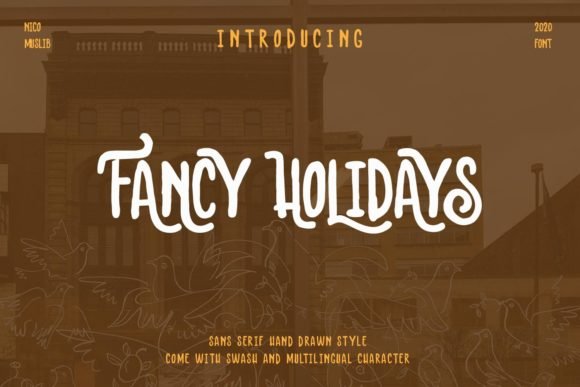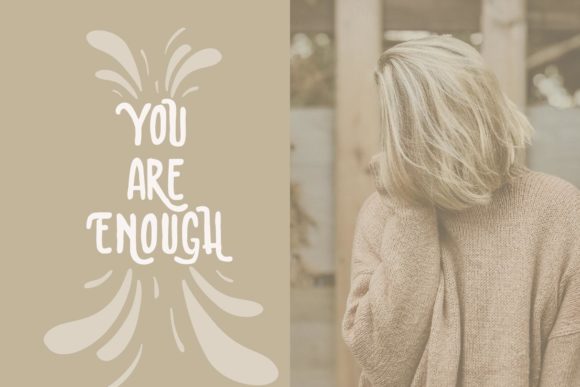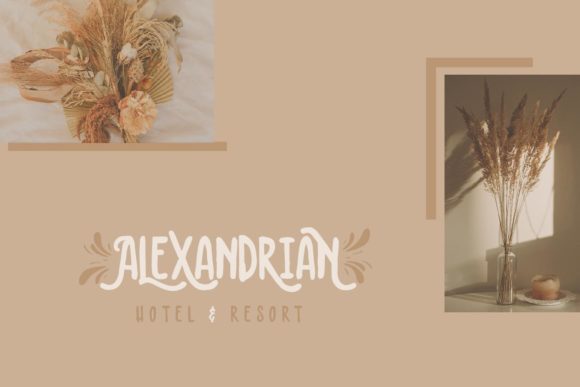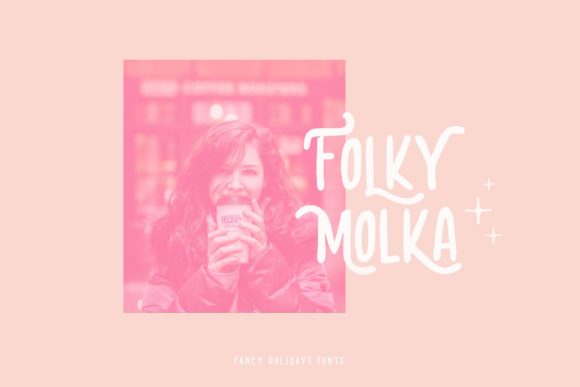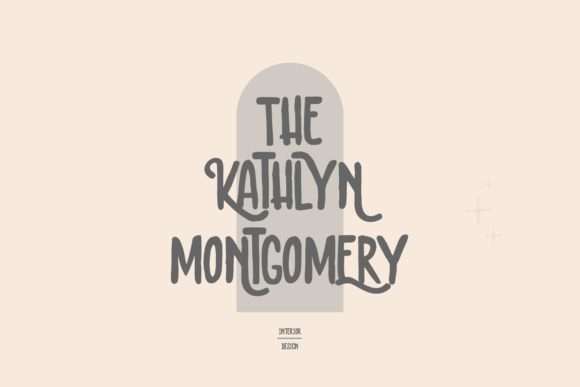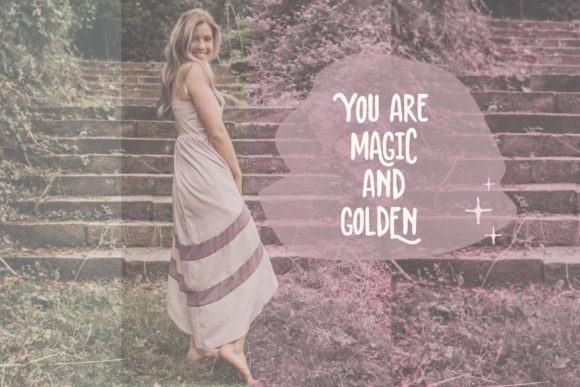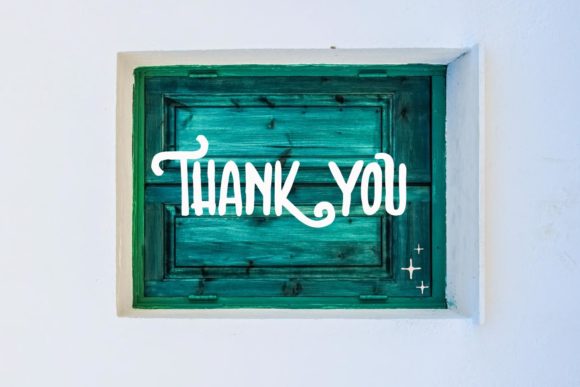
The Perfect Font for a Touch of Whimsy: Fancy Holidays Font
Remember that moment when you stumble upon the perfect font, and suddenly, your design project feels like a work of art? For designers, finding the right font can be the difference between a mediocre design and a truly show-stopping one. That’s exactly what I experienced when I discovered the enchanting Fancy Holidays Font.
Fancy Holidays Font is a one-of-a-kind, vintage styled display font that exudes elegance and sophistication. Its beautiful flow and style make it perfect for a wide range of applications, from prints and logos to signatures, quotes, and even packaging design. Whether you’re a seasoned designer or just starting out, this font is sure to bring a touch of whimsy and personality to your projects.
Fancy Holidays Font Key Features
- Font Styles: The Fancy Holidays Font includes 12 unique font styles, each with its own festive design, making it perfect for holiday-themed designs.
- Unique Characteristics: The Fancy Holidays Font features intricate details, ornaments, and flourishes, adding a touch of elegance and sophistication to any design.
Fancy Holidays Font Review
I recently had the chance to work with the Fancy Holidays Font, and I must say it’s a real showstopper. Here are my thoughts:
- The Fancy Holidays Font has a unique, eye-catching style that’s perfect for adding some flair to your designs. Whether it’s a holiday-themed project or just a fun twist on a regular design, this font delivers.
- The font is well-designed and easy to read, even at larger sizes. This makes it a great choice for headings and titles.
- The Fancy Holidays Font is also incredibly versatile, and can be used in a wide range of design projects, from logos to advertisements to packaging.
- The font may not be suitable for all design projects, particularly those that require a more subdued or minimalist look.
Overall, I think the Fancy Holidays Font is a great addition to any designer’s toolkit. While it may have some limitations, its unique style and versatility make it a worthwhile investment for designers who want to add some extra flair to their projects.
The Fancy Holidays Font is perfect for:
- Creating festive holiday cards and invitations.
- Designing holiday-themed social media graphics.
- Adding a touch of elegance to wedding invitations and stationery.